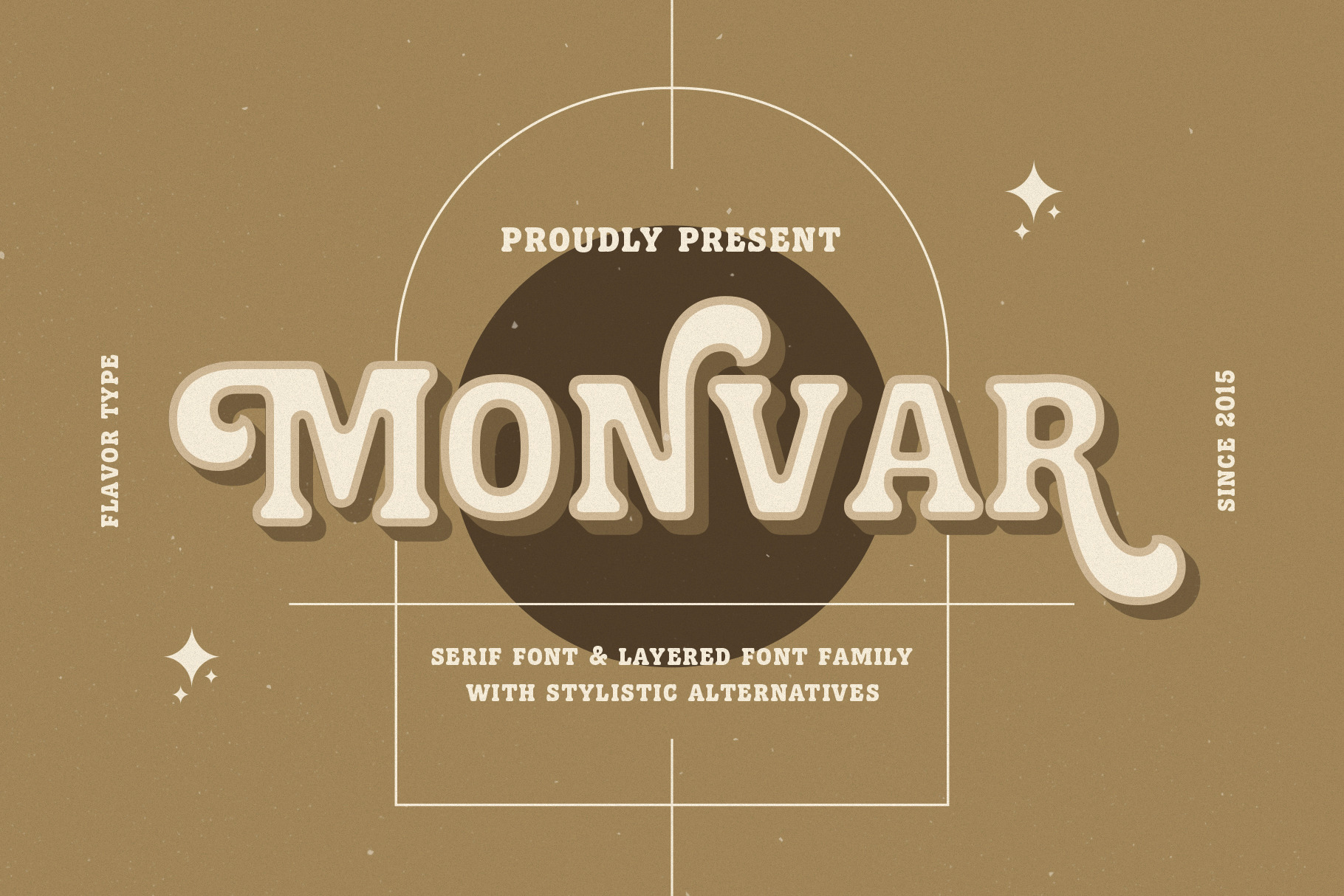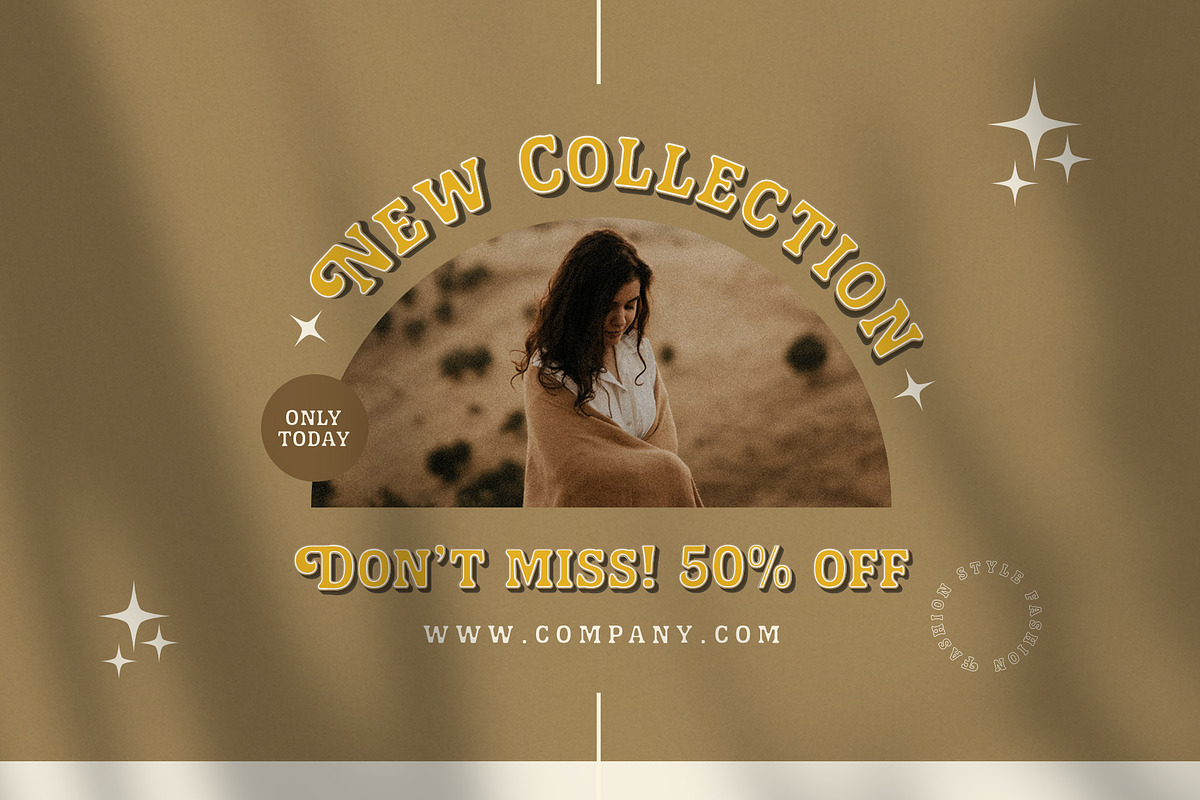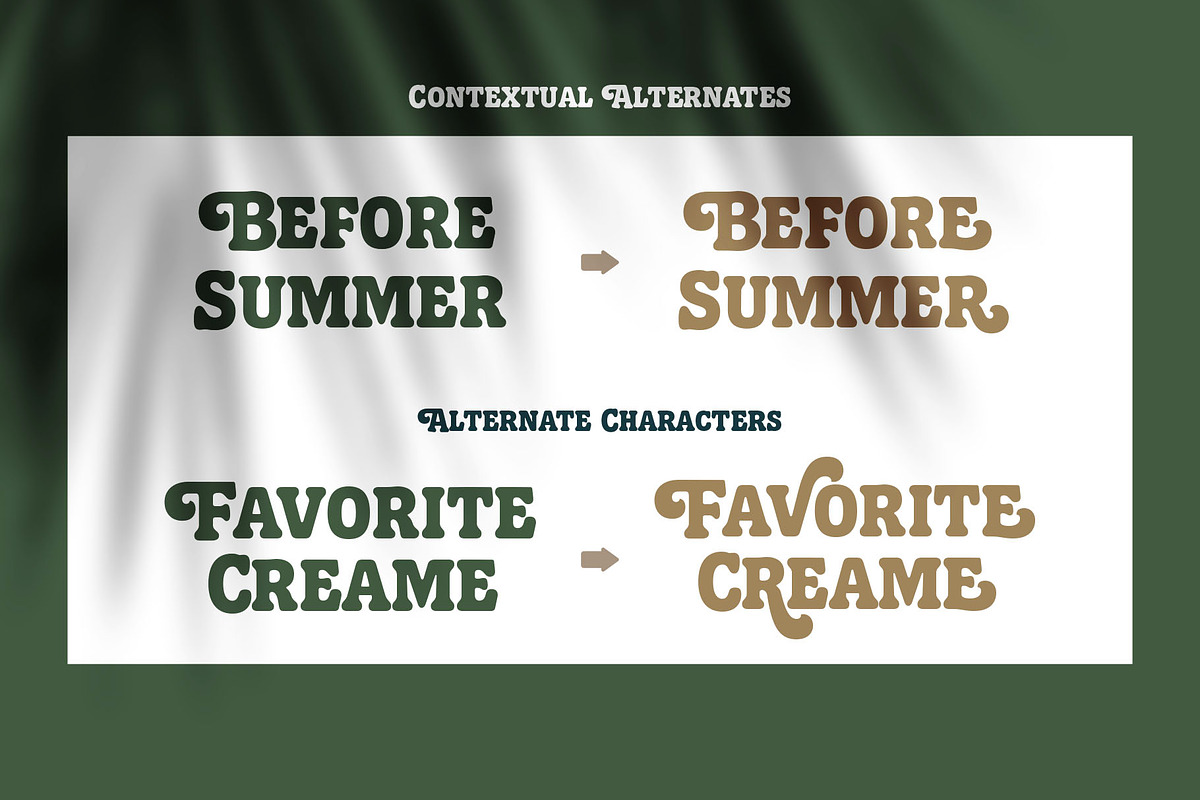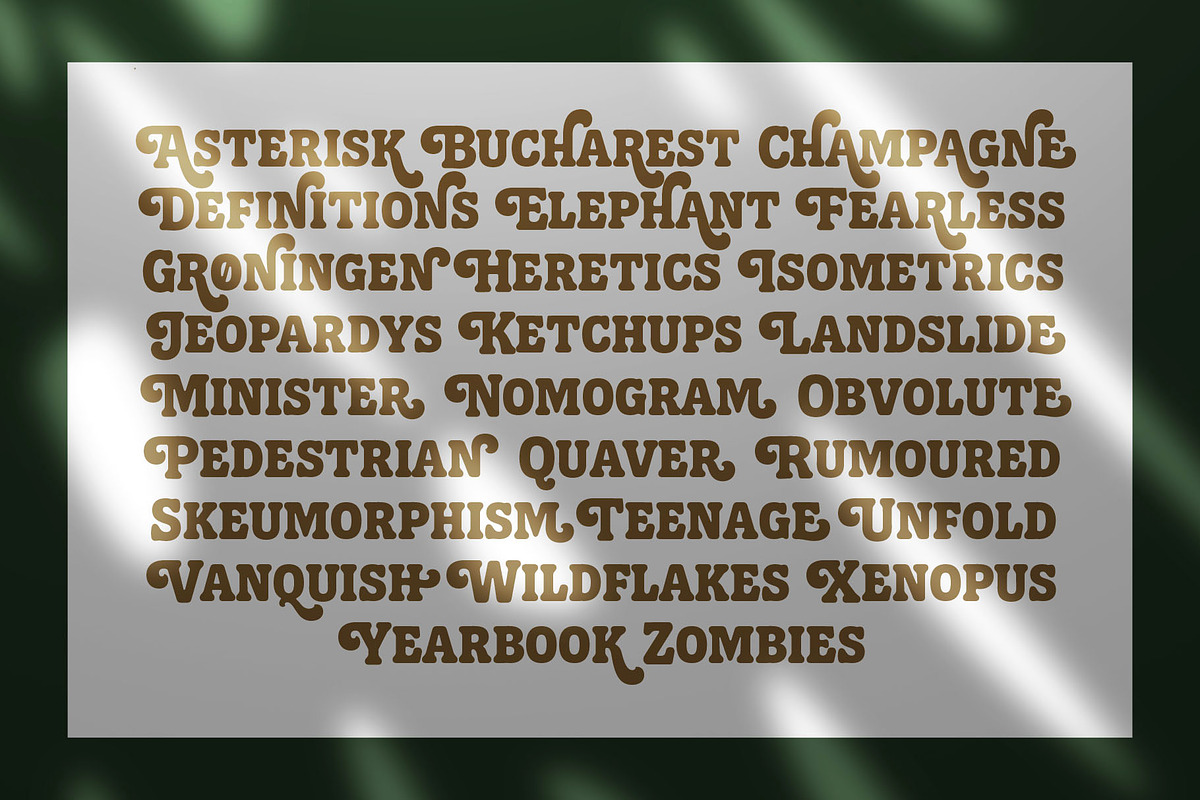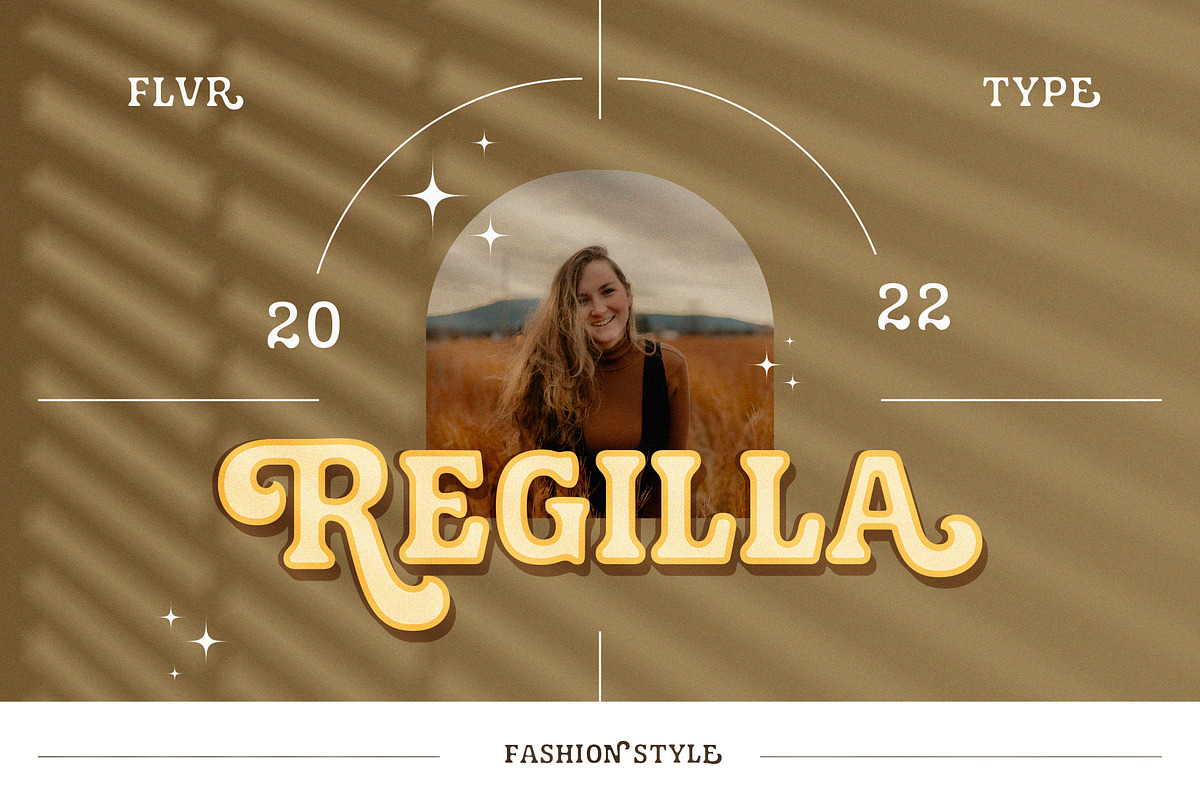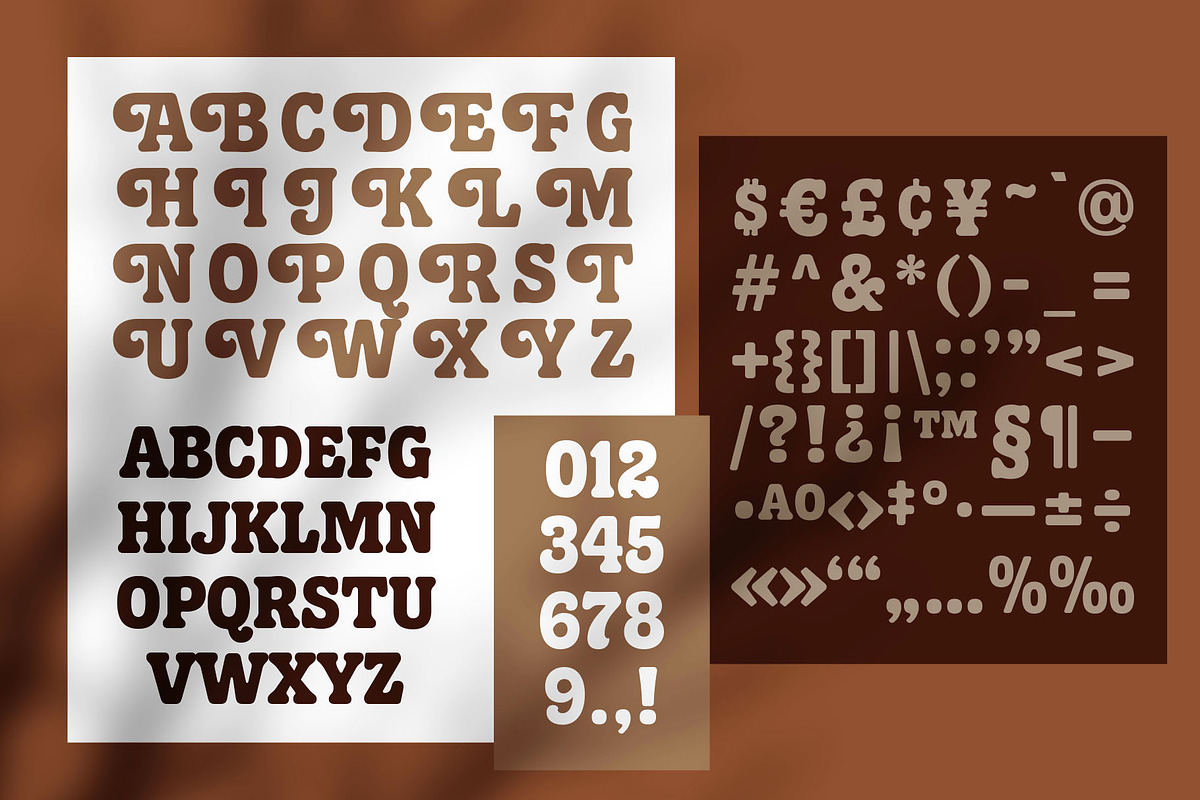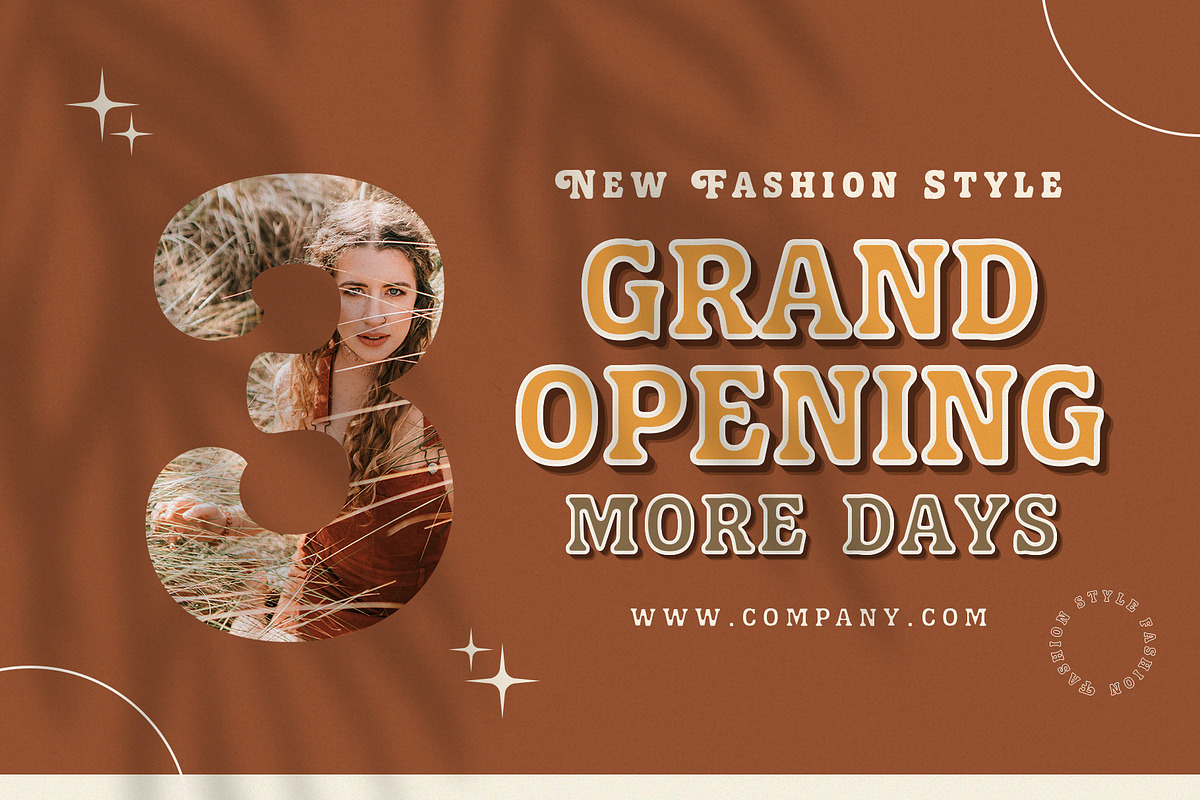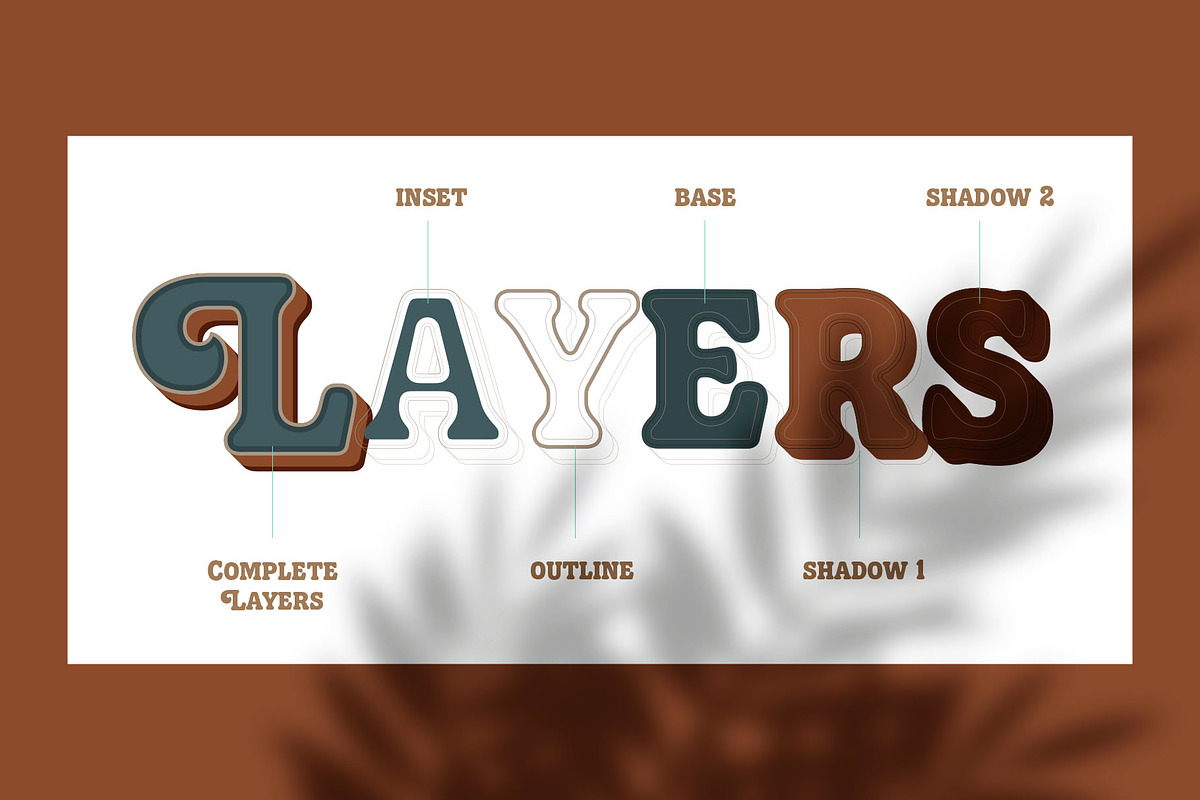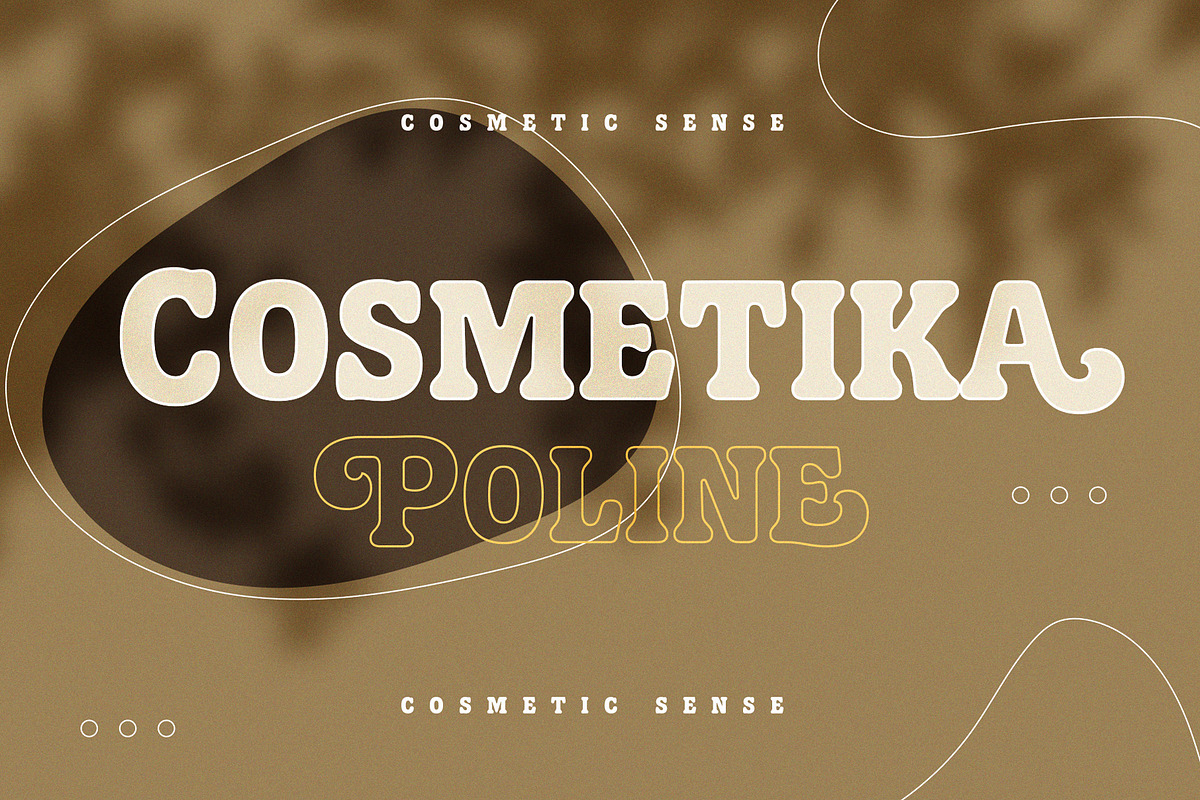
Monvar - Cooper Layered Fonts
Flavortype Present
Monvar, A new Cooper with layered typefaces. It’s Simple, Bold, Versatile, and Friendly feel that you get in Monvar Typefaces.
Monvar comes with 5 Layers : (that you can mix and match the looks as you like)
- Base
- Inset
- Outline
- Shadow 1
- Shadow 2
Monvar Created with an All Caps that the uppercase are using an initial swashes. Perfect fitted layer to give you a more contrast, more bold look of the title. Every glyphs including the alternate characters are curated for the best and possible without eliminate characteristic of this fonts.
Our creation on the display to give you a reference what it looks like on your project. such as Branding, Header, Logotype, Poster, Magazine, Packaging, Food Menus, and etc. It shows that Monvar clearly can accommodate various design style.